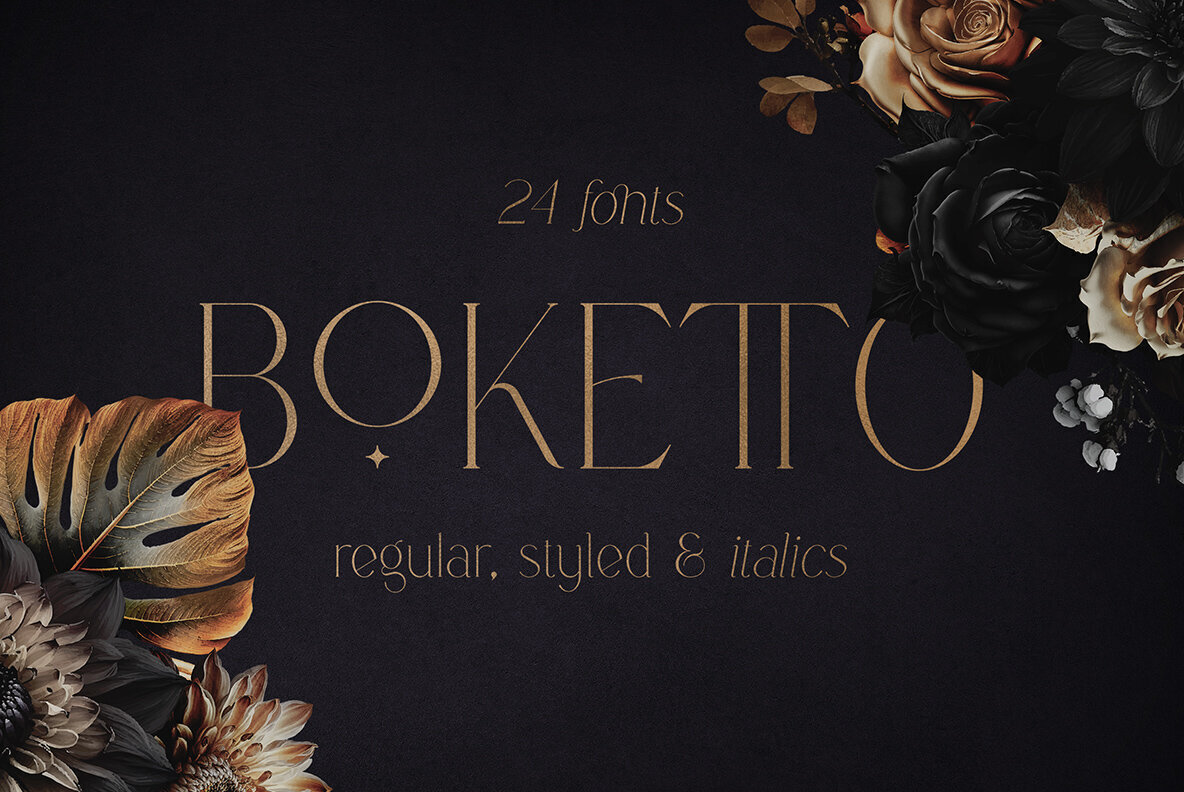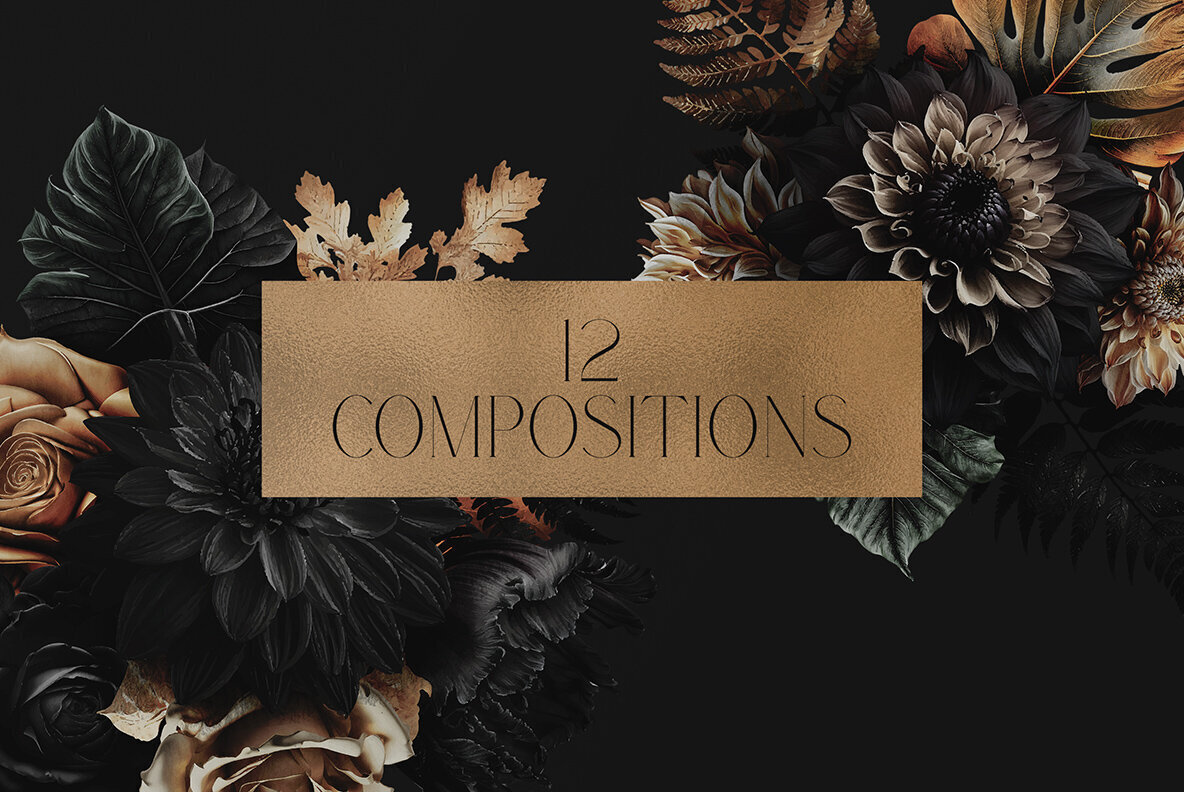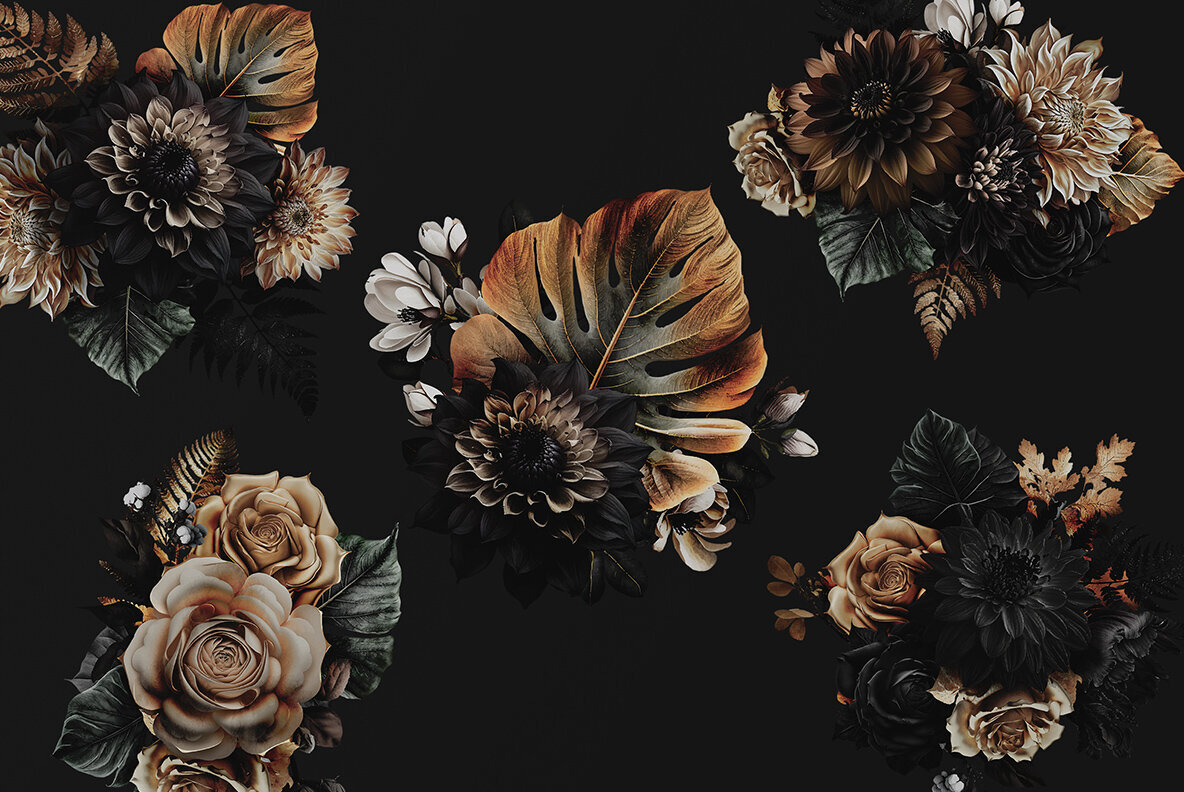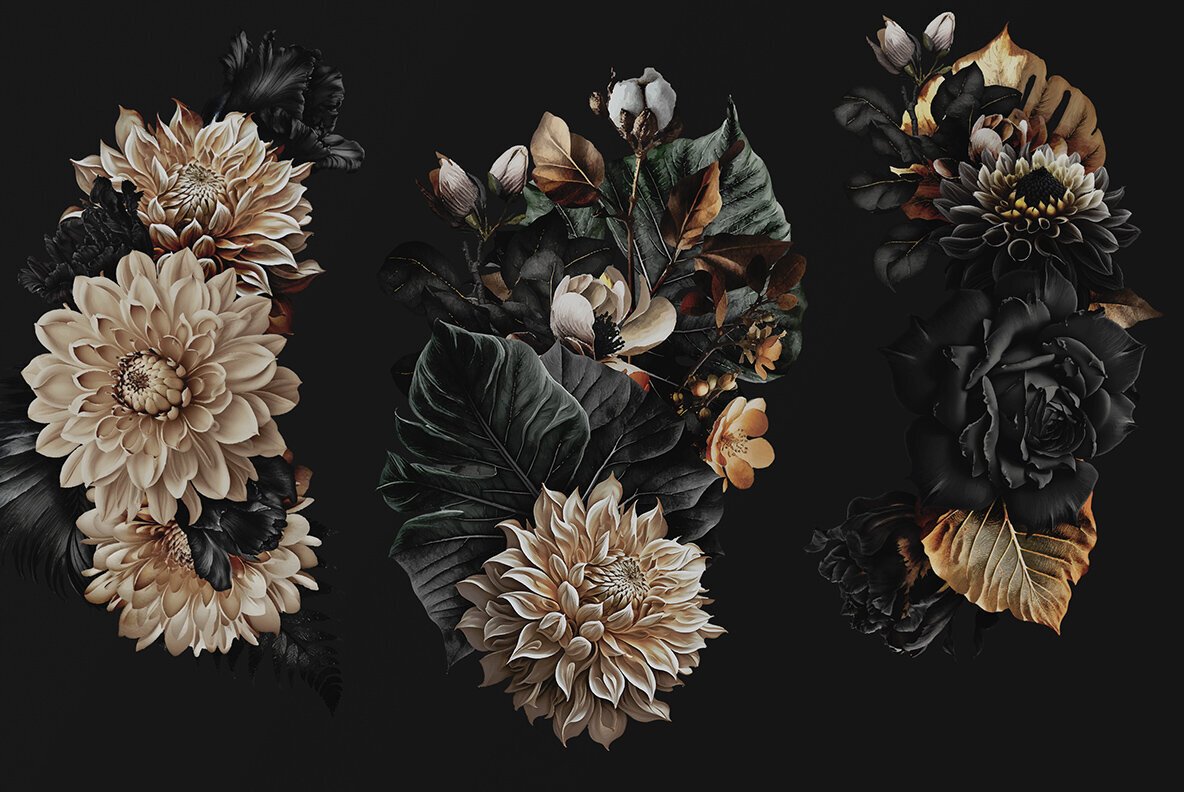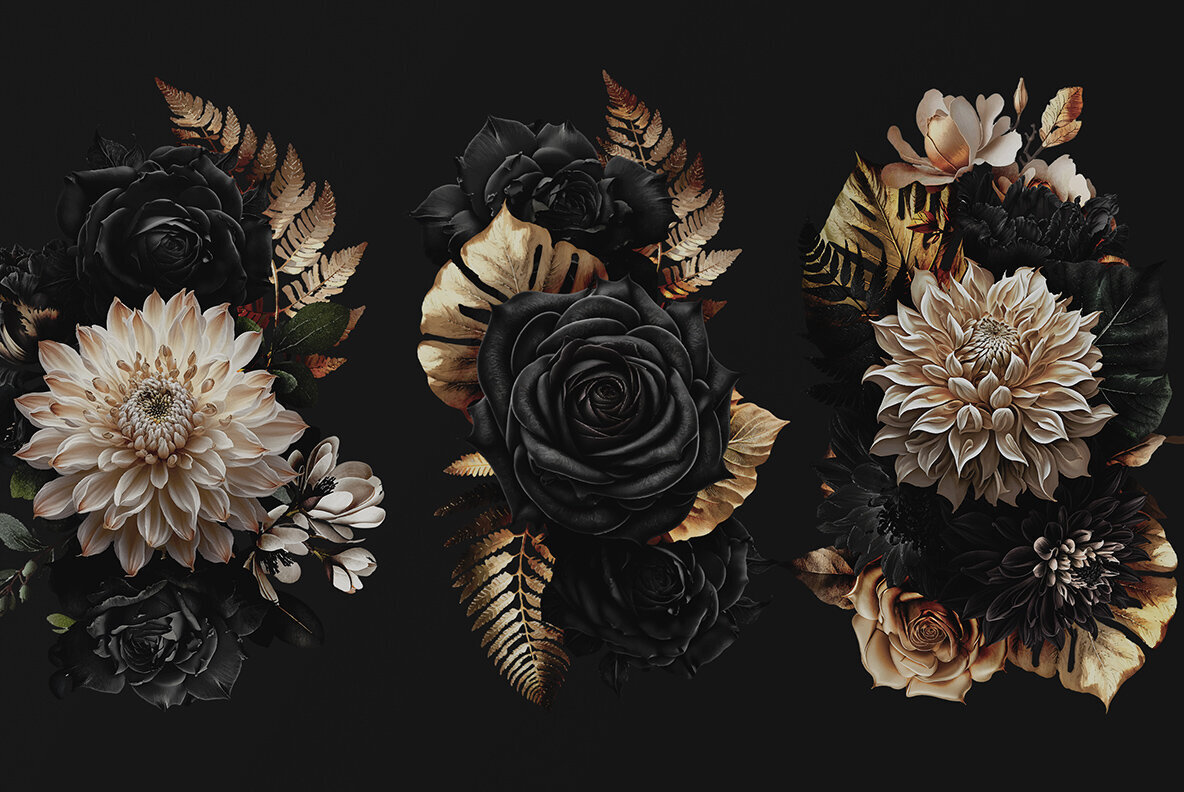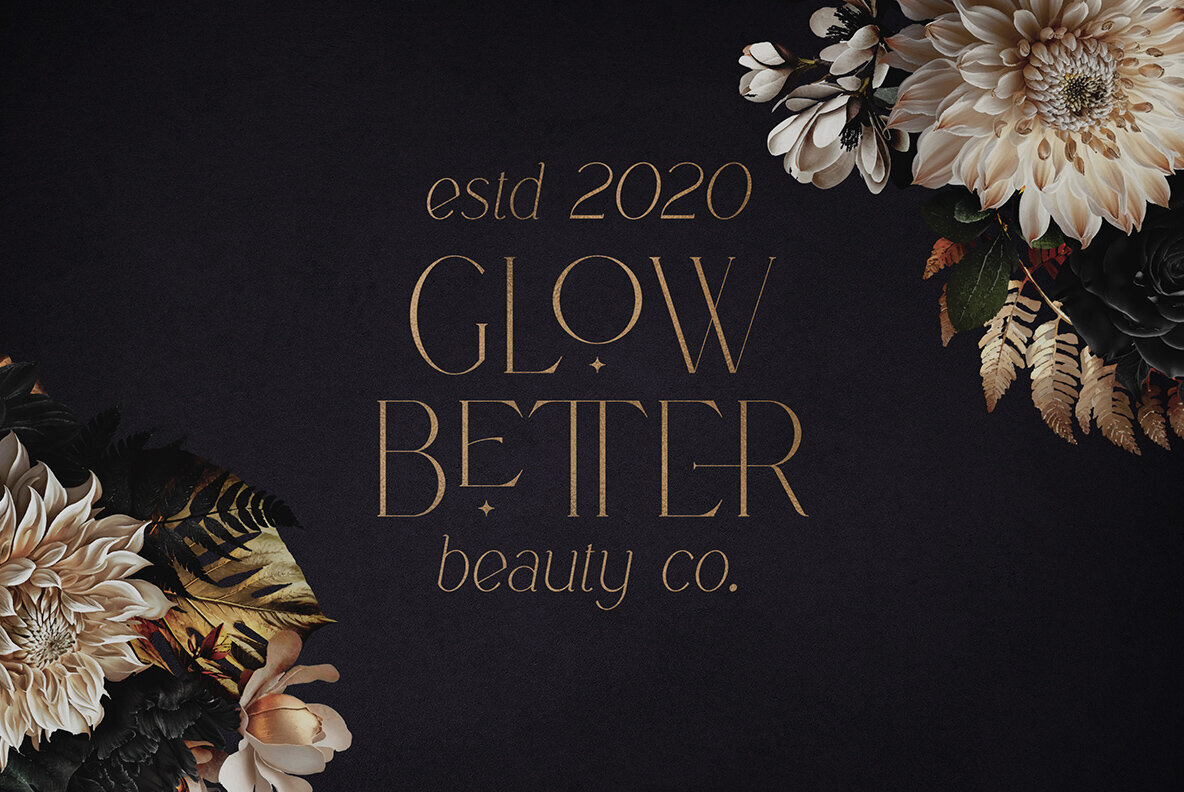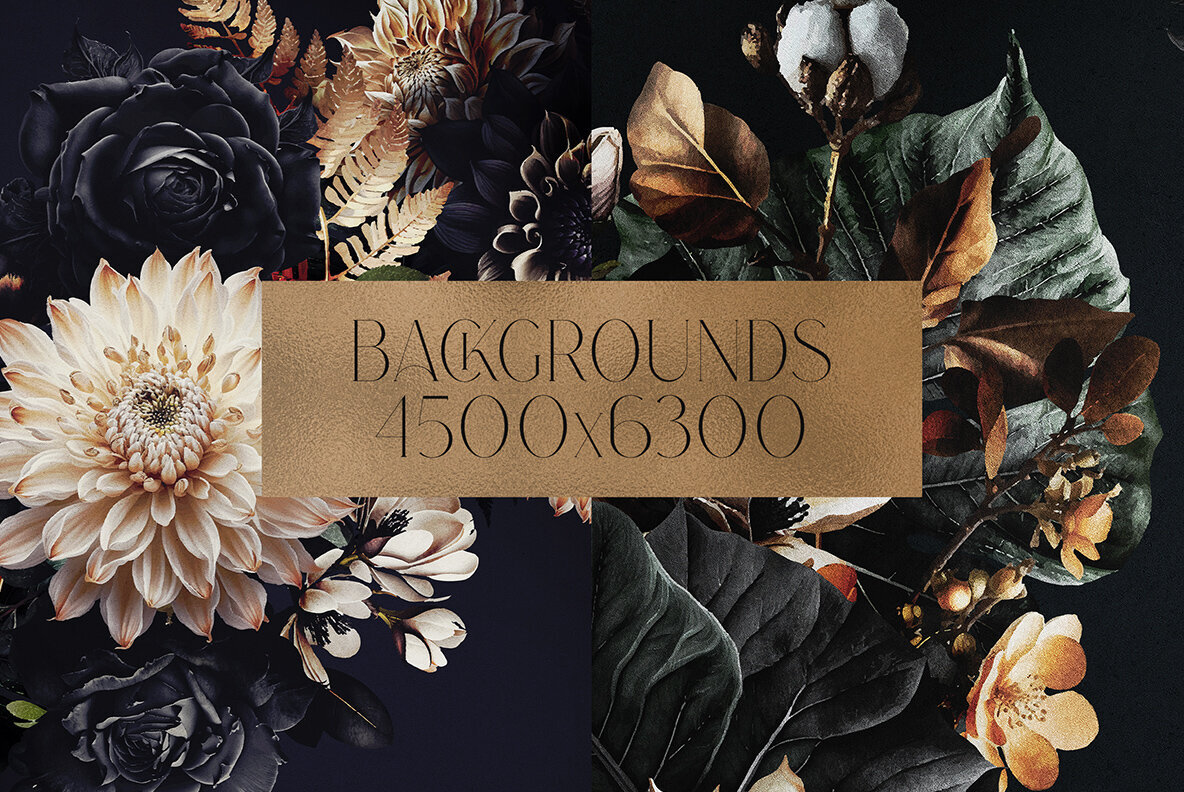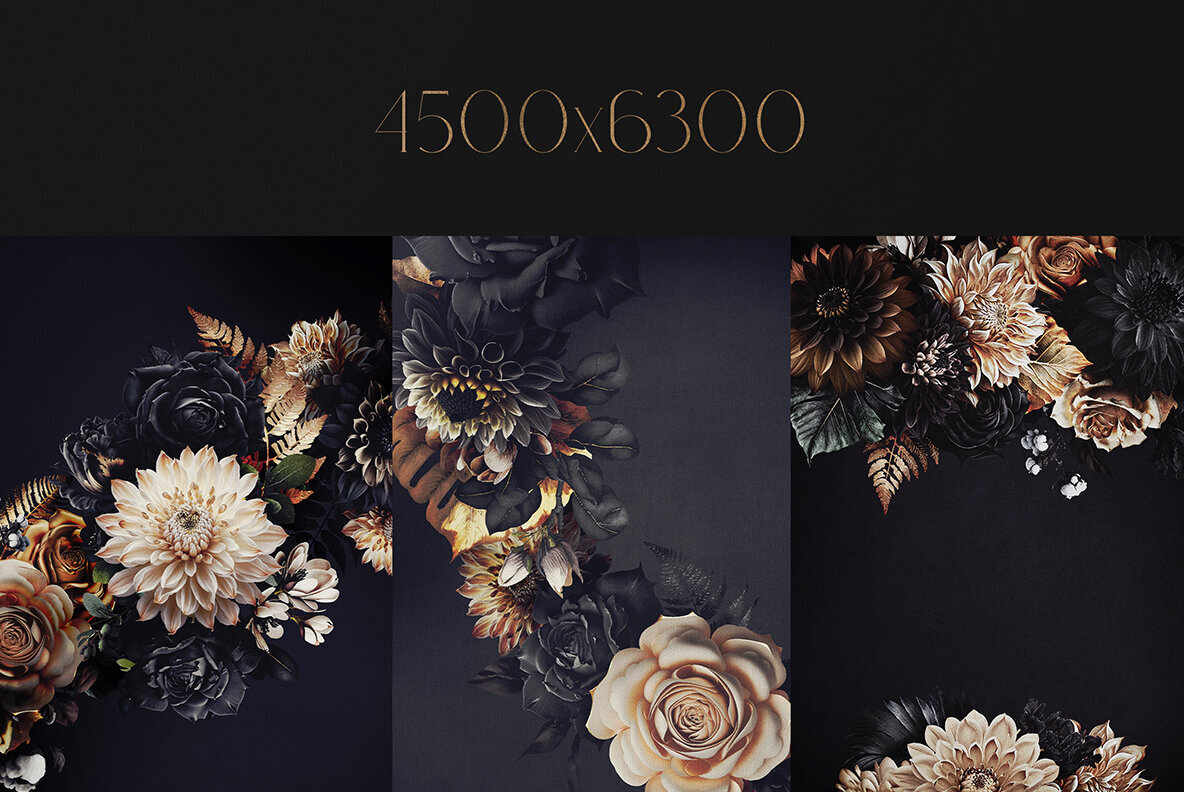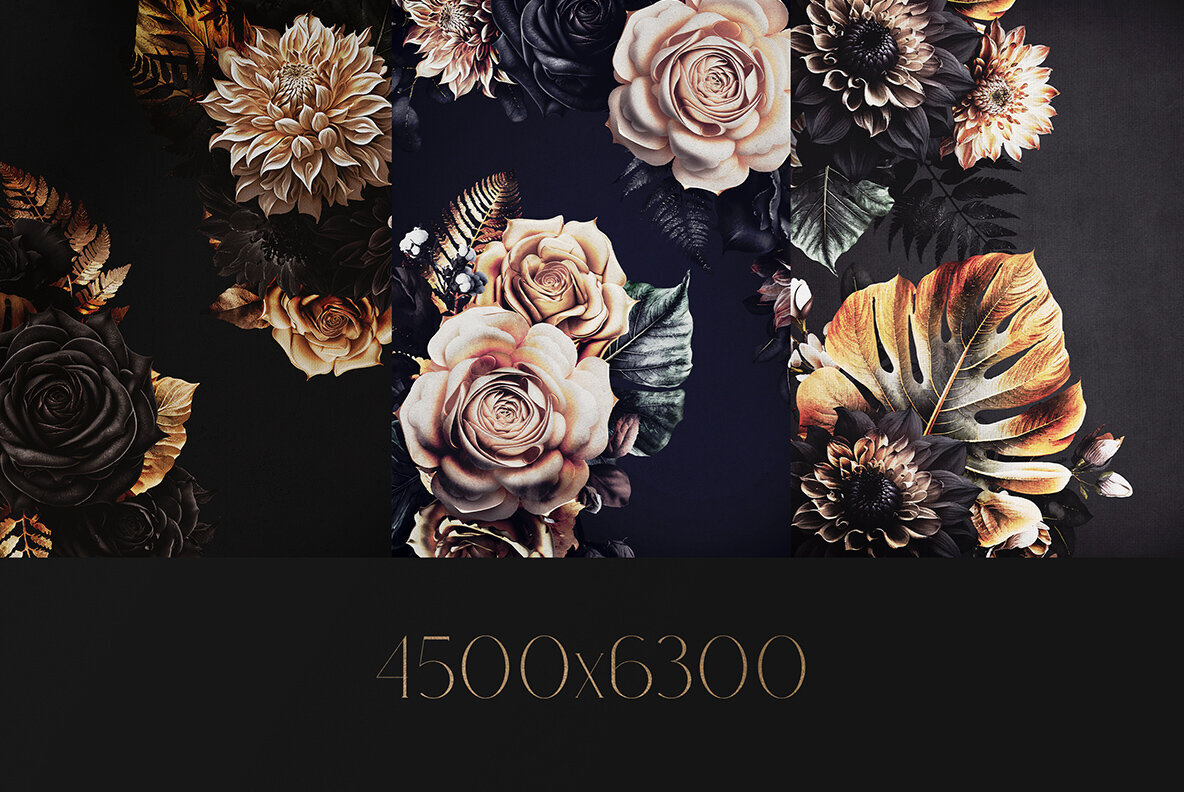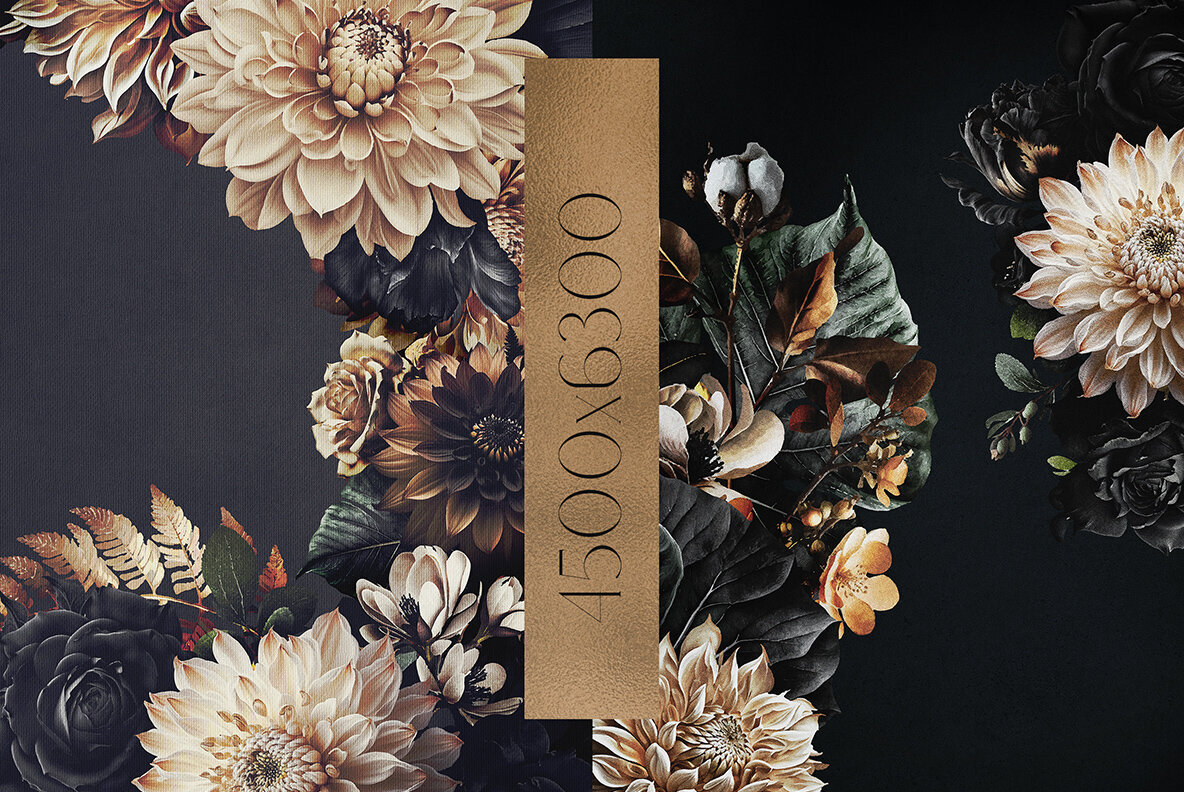
Black - Gold with Boketto typeface Font
Elevate your design projects with the striking Black & Gold Botanica set, featuring the versatile Boketto typeface. This collection offers an array of assets perfect for graphic design, branding, and more, melded seamlessly with 24 distinct font styles. Typeface Features: No special software is required for standard character use. Access alternate glyphs in Adobe design software through the Glyphs panel.Black & Gold Botanica with Boketto Typeface: A Comprehensive Design Toolkit
This carefully curated set ensures your designs will captivate with elegance and sophistication, while providing the technical support to cater to a vast array of international audiences.